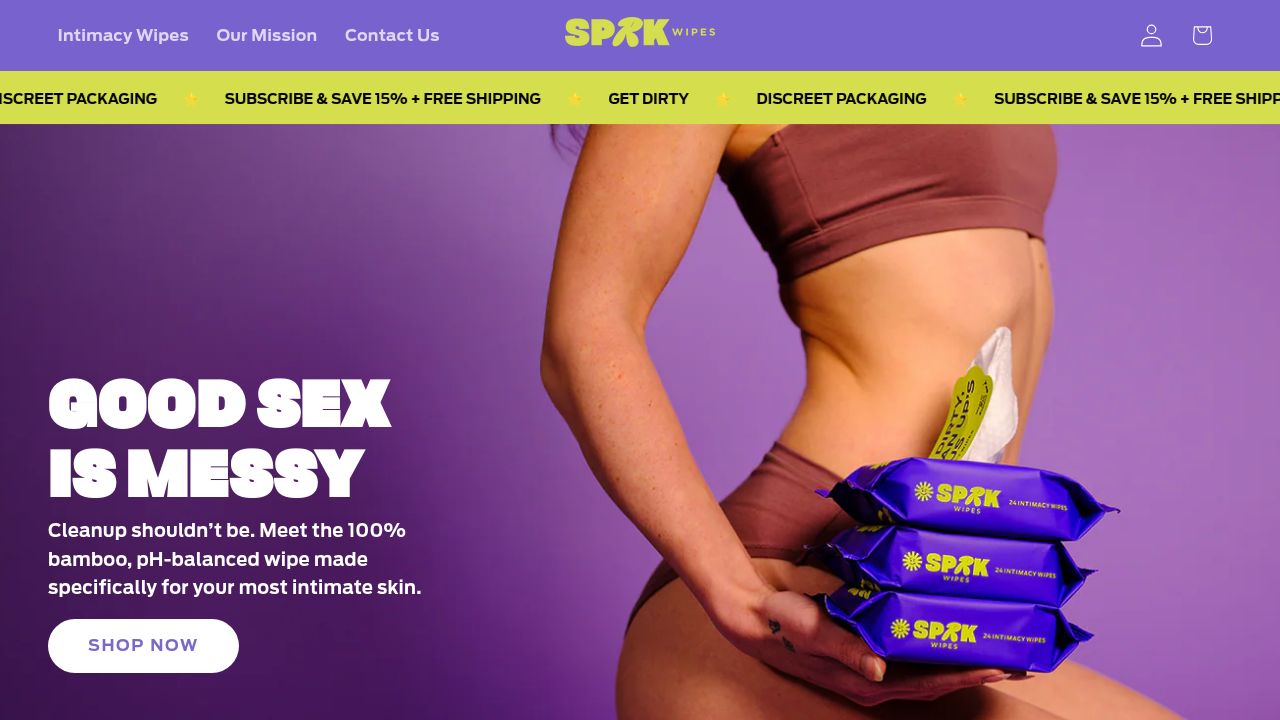
SPRK Wipes, a brand dedicated to post-intimacy hygiene, utilizes a carefully curated selection of fonts to enhance its visual identity. The boldness of Petrona at weight 700 conveys a sense of confidence, while JudgemeStar and Karla offer a friendly and approachable aesthetic. CuriousWorld-Regular adds a touch of whimsy, and Antenna reinforces the brand's commitment to quality through its strong presence. Together, these fonts create a cohesive and inviting atmosphere for their audience.
SPRK Wipes uses several primary fonts, including Petrona (weight 700), JudgemeStar (normal), Karla (400), CuriousWorld-Regular (400), and Antenna (700) for a distinctive look.
The fonts used by SPRK Wipes, such as Petrona and JudgemeStar, provide a unique blend of personality and readability that sets the brand apart from typical alternatives in the hygiene market.
SPRK Wipes utilizes Petrona in weight 700, while JudgemeStar and Karla are used in normal and 400 weights respectively. CuriousWorld-Regular and Antenna are also featured in 400 and 700 weights.